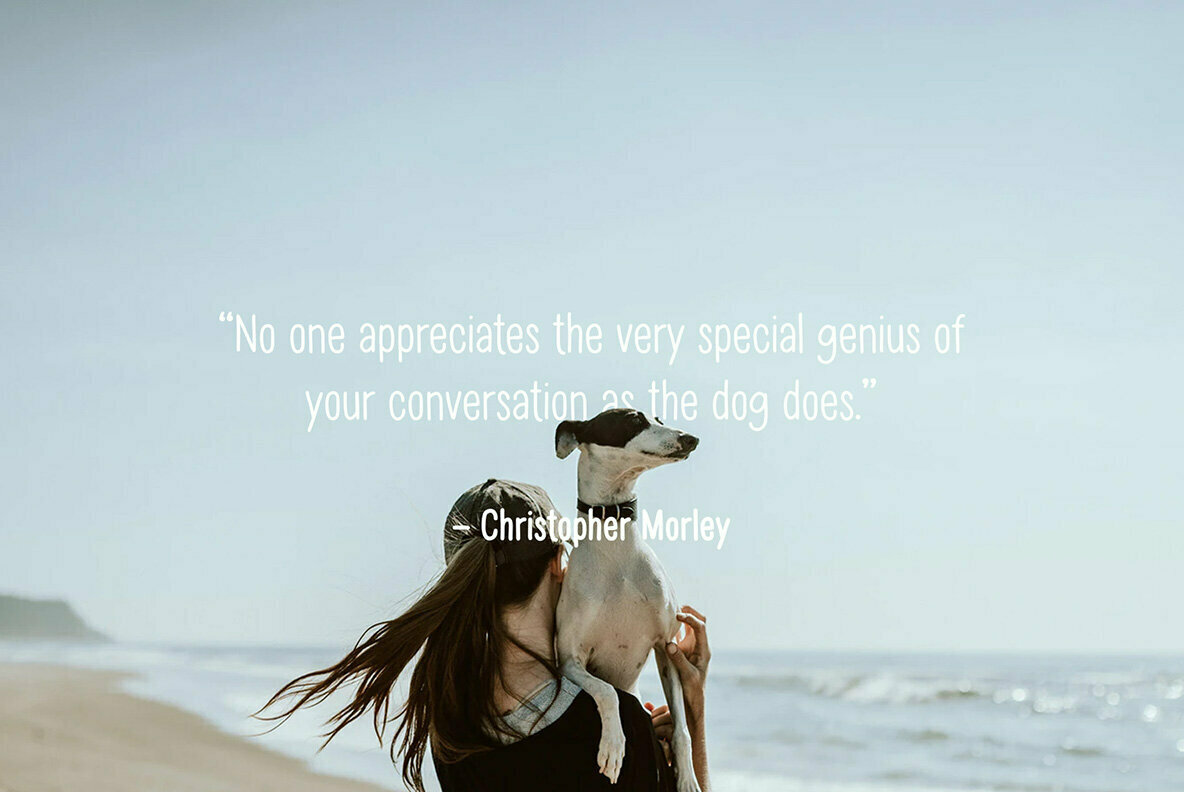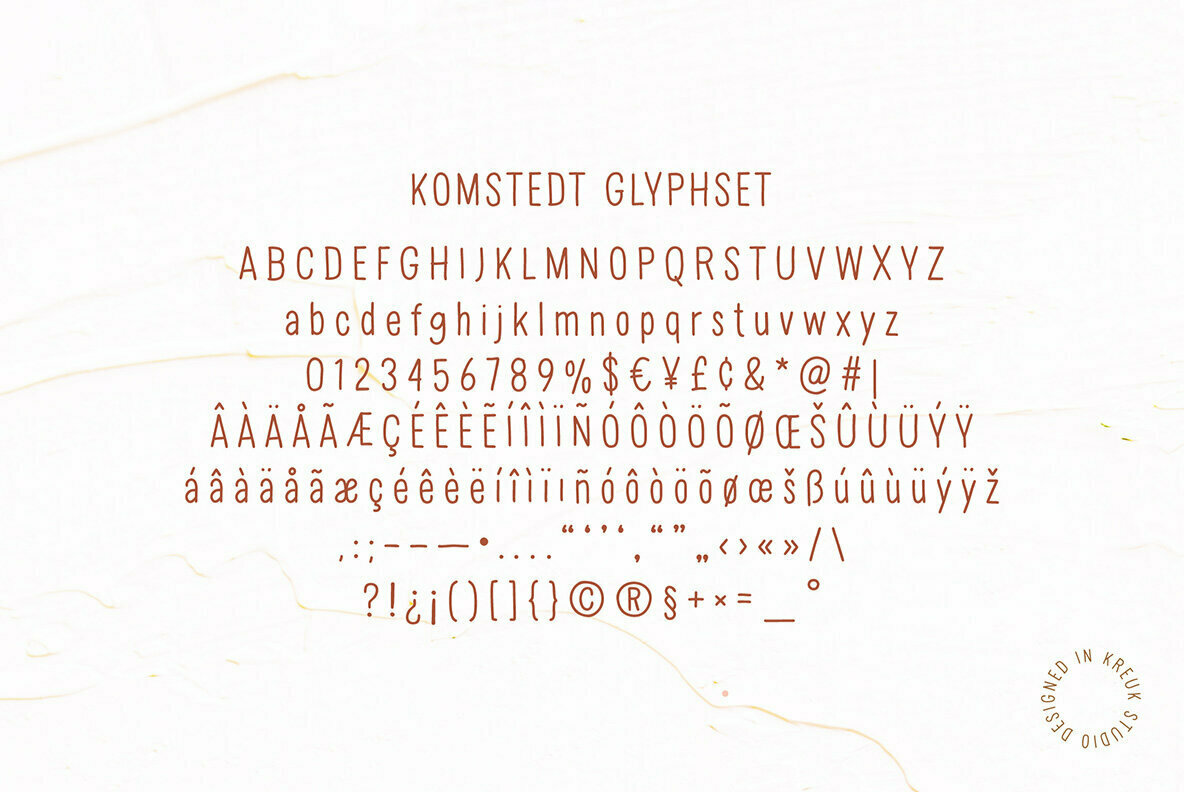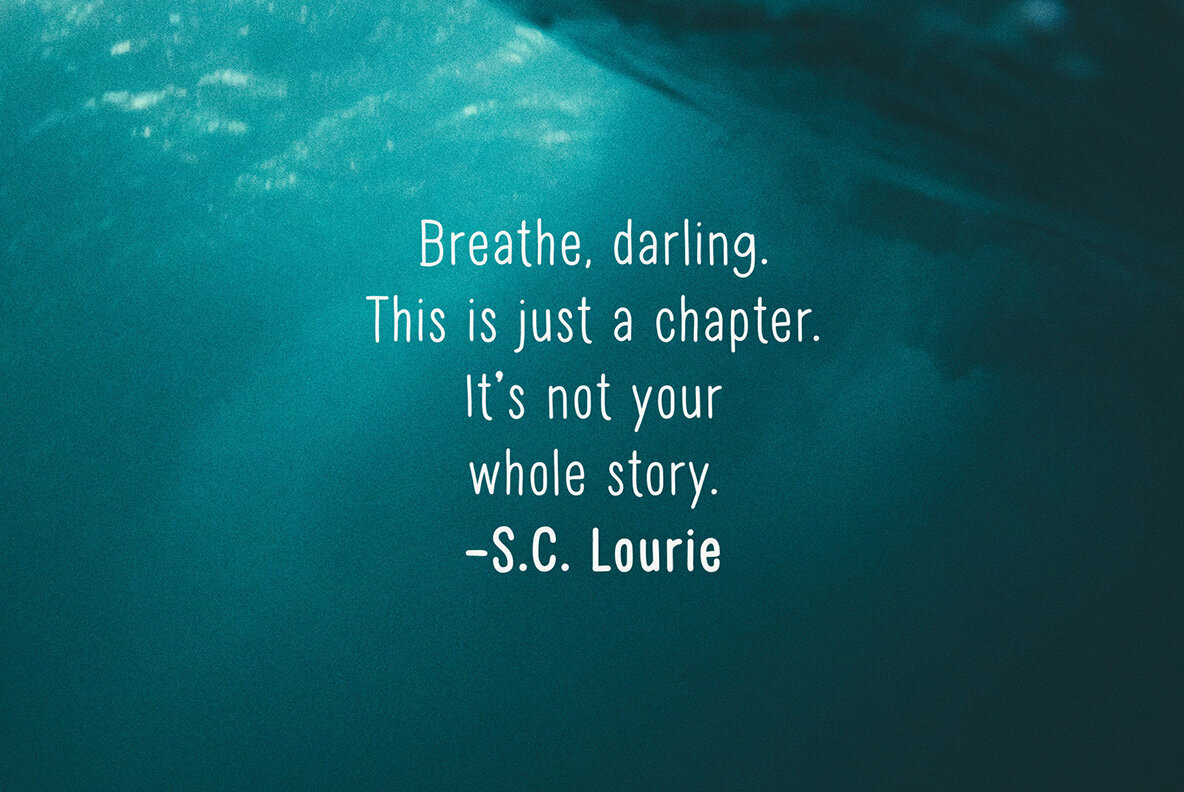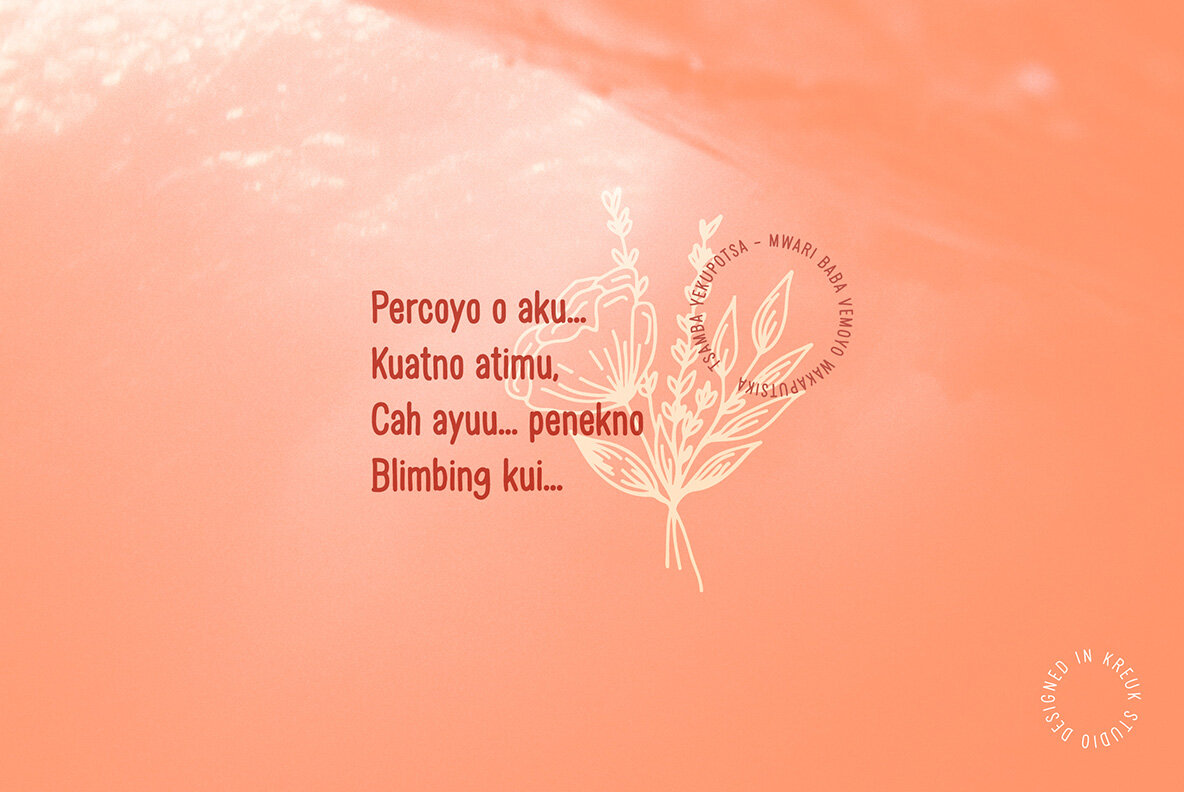
Komstedt Hands: A Handwritten Typeface with Nostalgic Charm
Komstedt Hands captures the essence of handwritten display fonts, offering a smooth and whimsical appeal enriched with a sense of nostalgia. This typeface is available in Regular and Bold weights, providing options to fit various design needs. Ideal for creating eye-catching headlines, designing heartfelt greeting cards, crafting unique logos, or composing memorable quote posts, Komstedt Hands delivers versatility and style.
• Handwritten aesthetic with smooth lines
• Available in Regular and Bold weights
• Supports multilingual glyphs
• Perfect for headlines, logos, and quoted texts